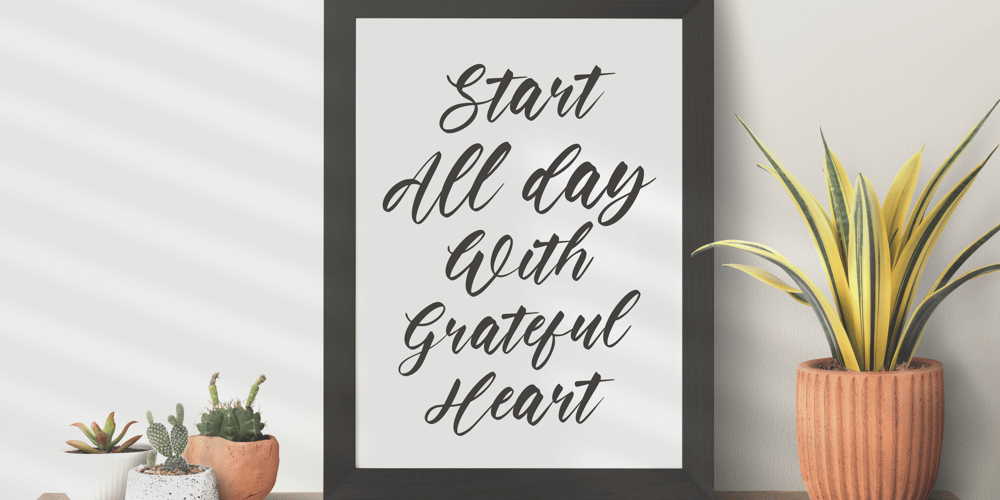
Heroic Trouble Font Family was designed by Restu Angga and published by Balpirick. Heroic Trouble contains 1 styles and family package options. Heroic Trouble is a Modern Handwritten Script Font.Heroic Trouble is a modern handwritten script font. Heroic Trouble Monoline is a thin-lettered and refined script font that emanates sophistication and elegance. Its stylish alternates and ligatures make this font the perfect match for any project. You can use this feminine font for clothes, fashion, magazines, wedding invitations, and cards.Heroic Trouble also multilingual support.Enjoy the font, feel free to comment or feedback, send me PM or email.Thank you!